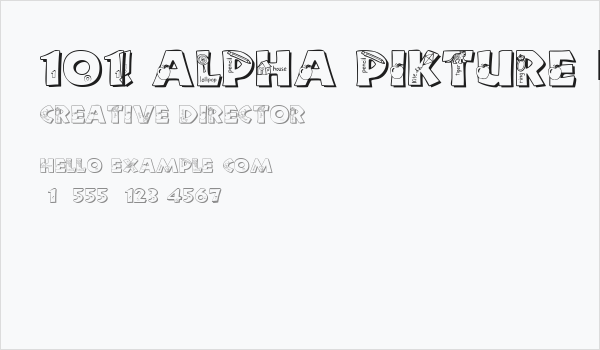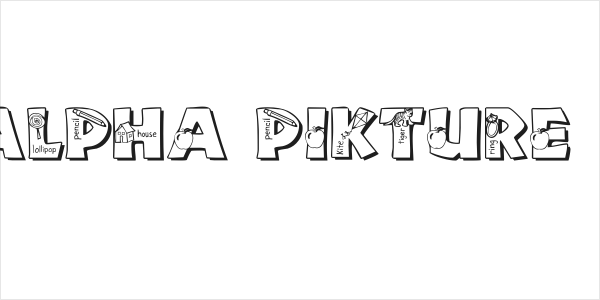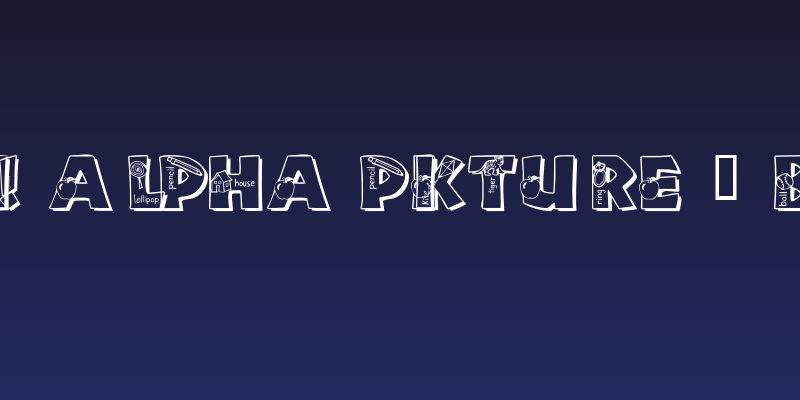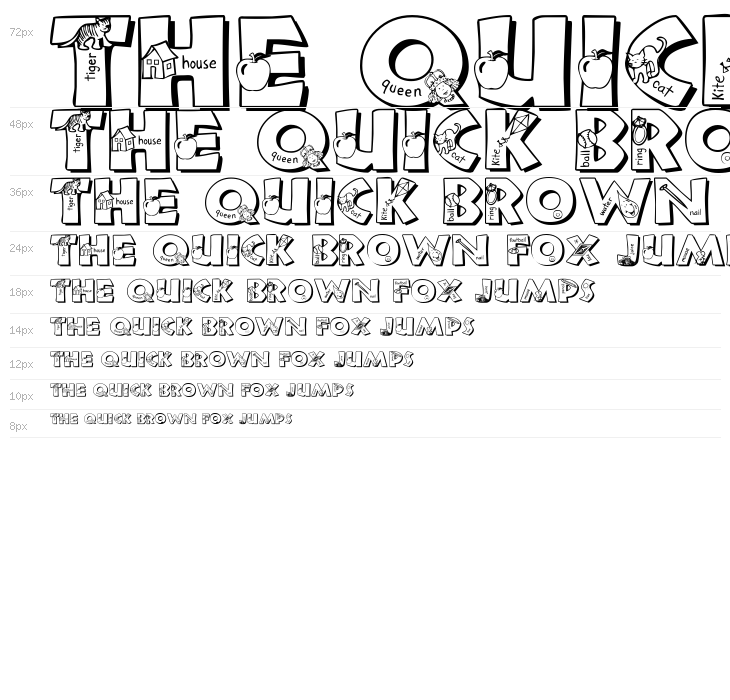
101! Alpha Pikture 'Bet Font
101! Alpha Pikture 'Bet Description
This playful and illustrative font features bold, blocky letters with embedded images that correspond to each character. Each letter is uniquely designed with a small picture that represents a word starting with that letter, such as 'ball' for B and 'duck' for D. The numbers also follow this pattern, with each digit accompanied by a relevant image. The font has a three-dimensional appearance with a shadow effect, adding depth and a fun, engaging look. It's perfect for educational materials, children's books, or any project that requires a whimsical and interactive design.
| Overall Style | Playful, Educational |
| Use Case | Headlines, Educational materials, Children's books |
| Proposed Projects | Ideal for children's books, educational materials, playful posters, and interactive learning tools. |